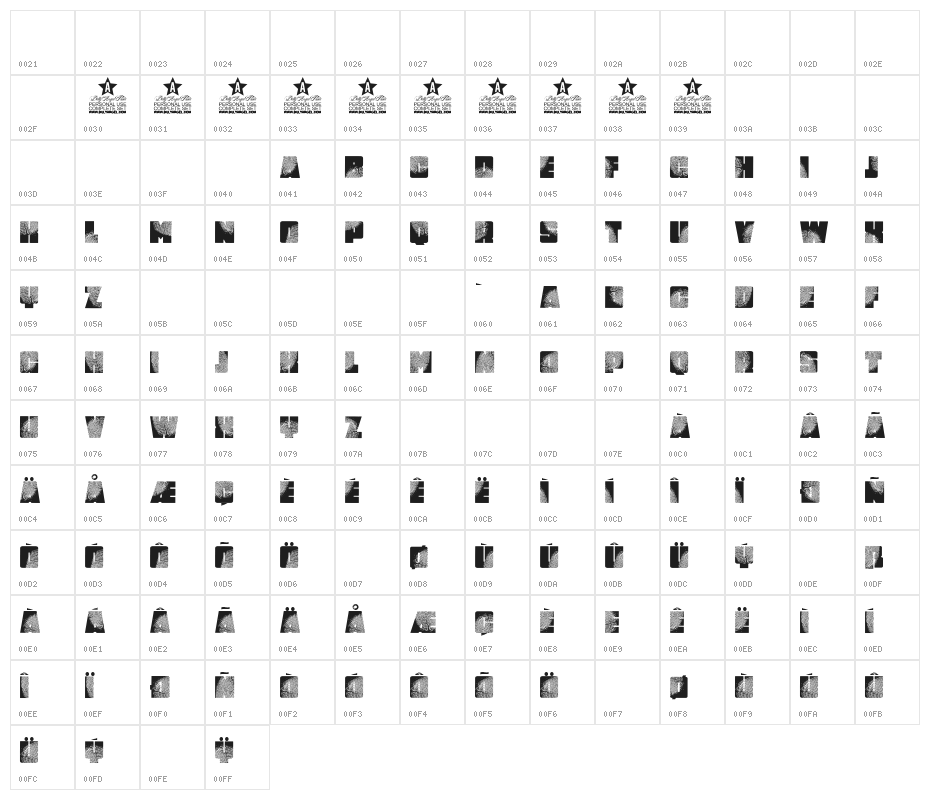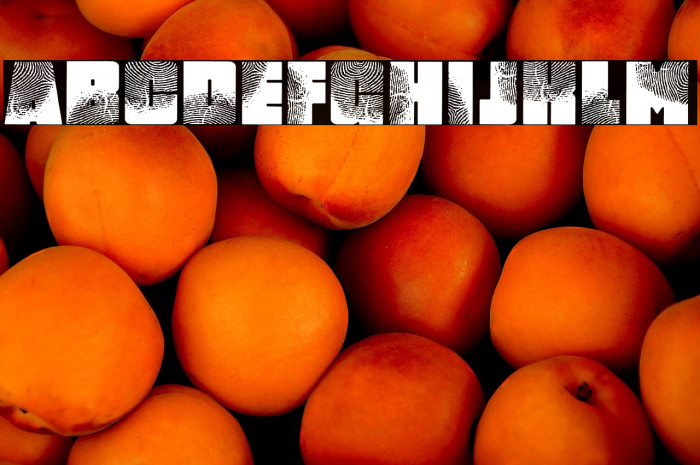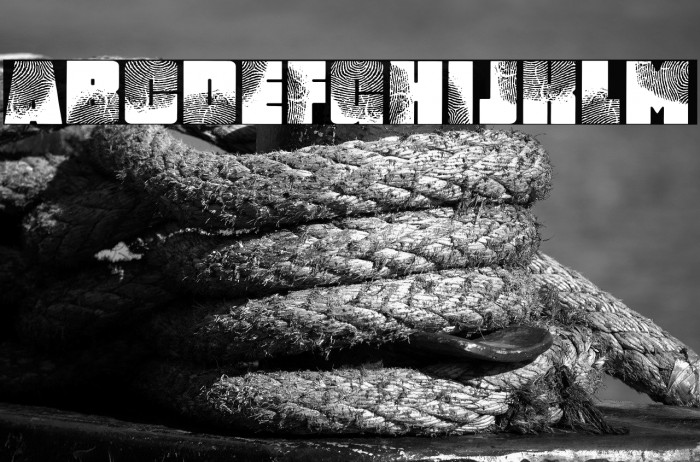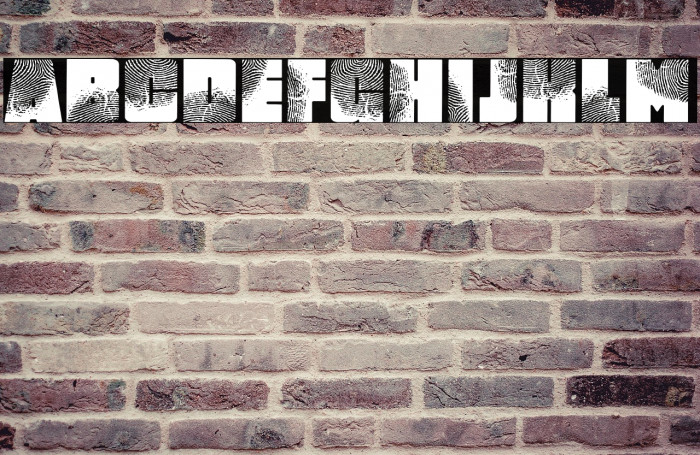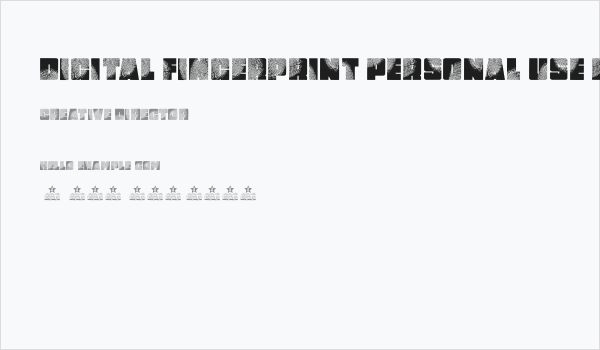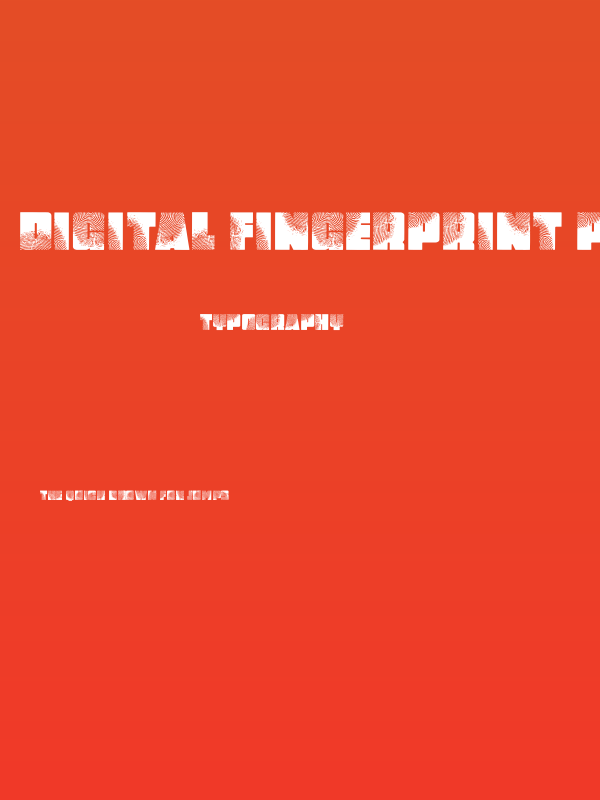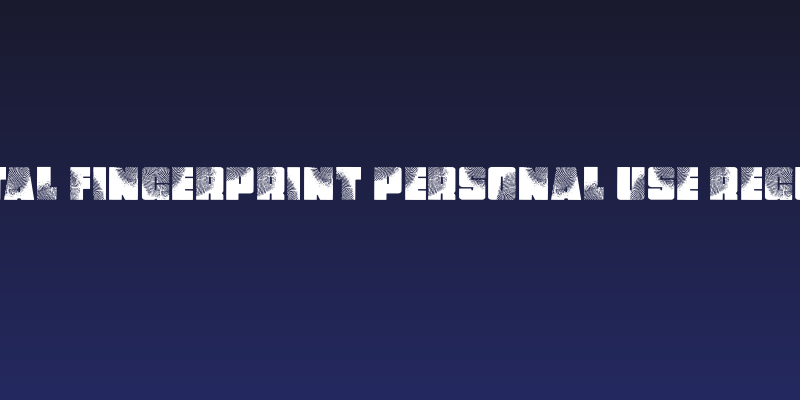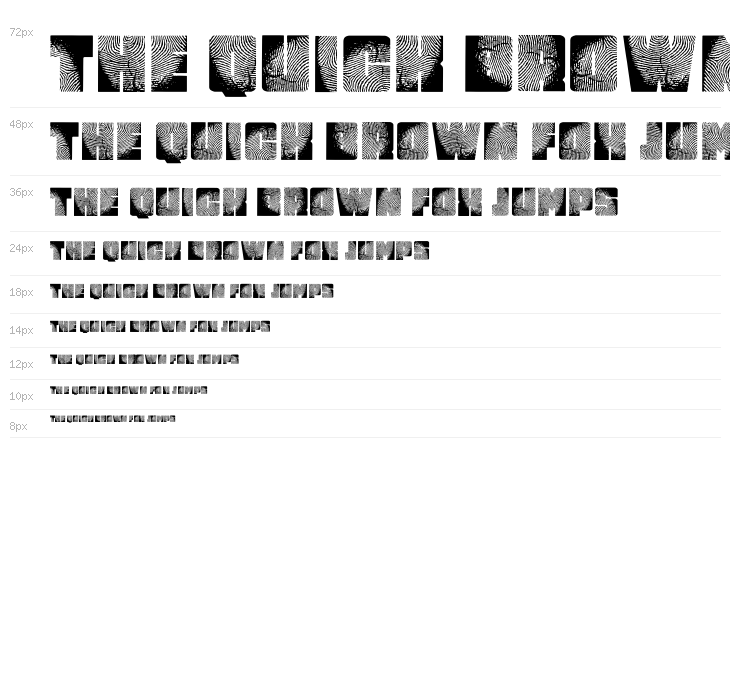
DigItAl FingerpRINT PERSONAL USE Regular Font
DigItAl FingerpRINT PERSONAL USE Regular Description
This font features a unique and striking design with each character incorporating intricate fingerprint patterns. The bold, blocky letters are filled with detailed lines that mimic the swirls and loops of a fingerprint, creating a textured and visually engaging effect. The uppercase and lowercase letters maintain a consistent style, with the fingerprint motif providing a cohesive look across the entire alphabet. This font is particularly eye-catching and would stand out in any design project that requires a bold statement. The characters are evenly spaced, ensuring readability despite the complex internal patterns.
| Proposed Projects | Ideal for projects that require a bold and unique visual impact, such as posters, album covers, branding for security or forensic services, and artistic designs. |